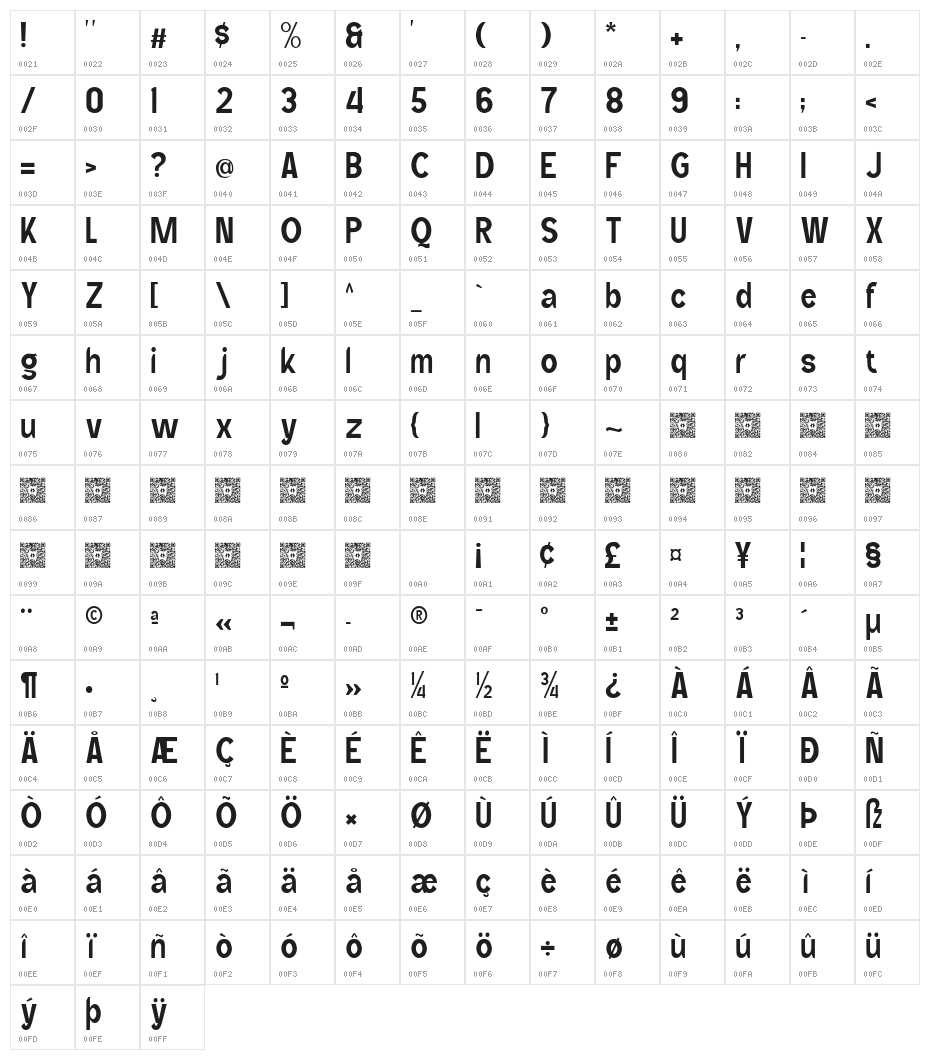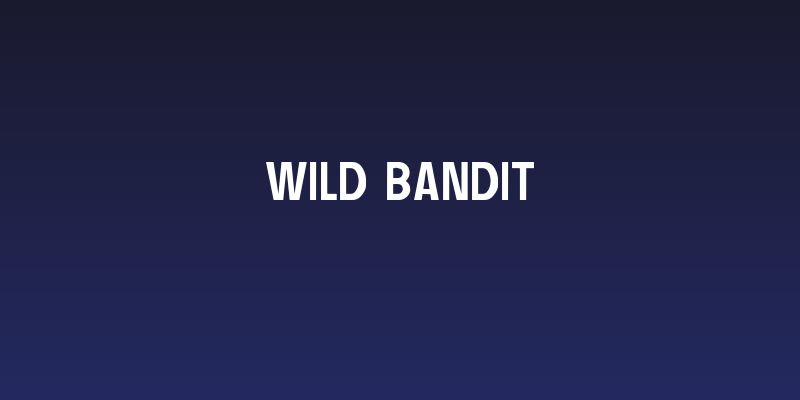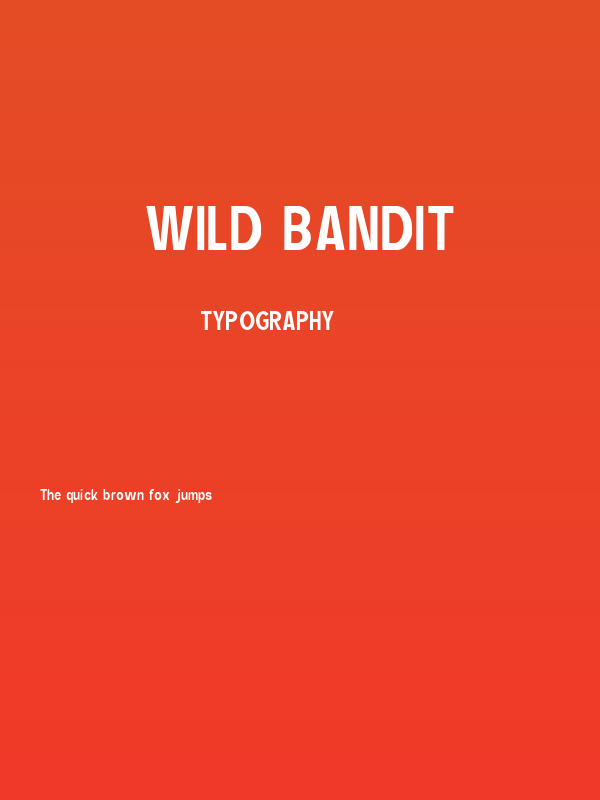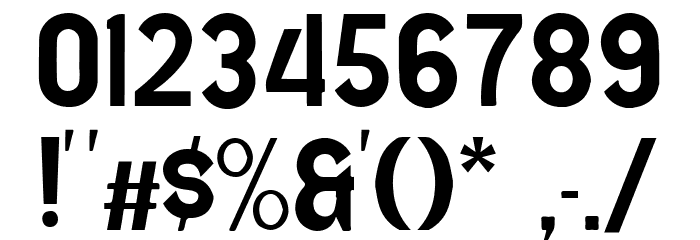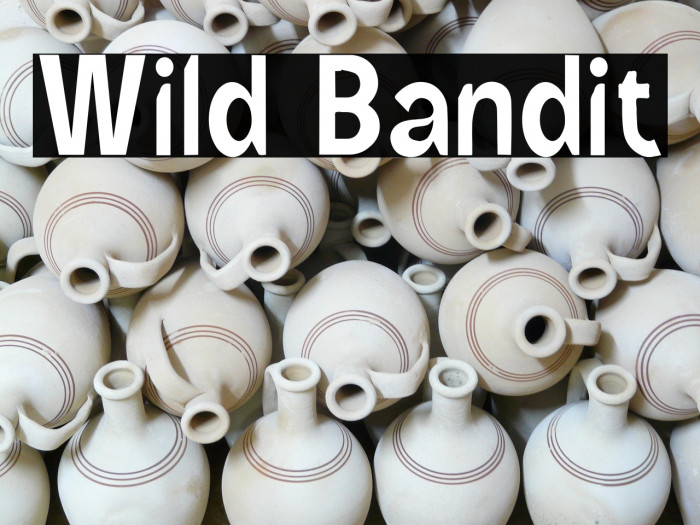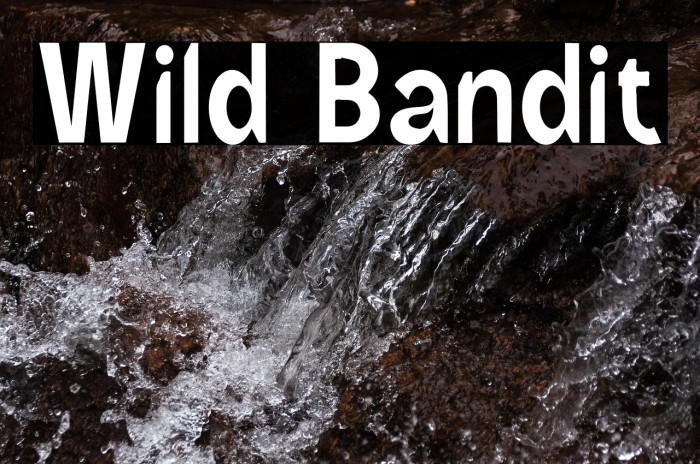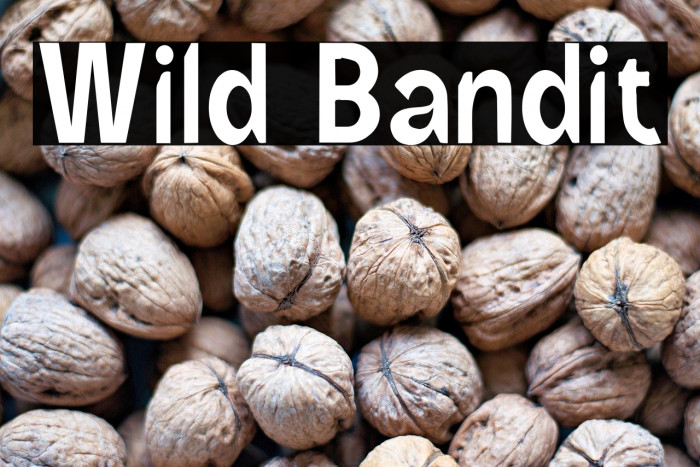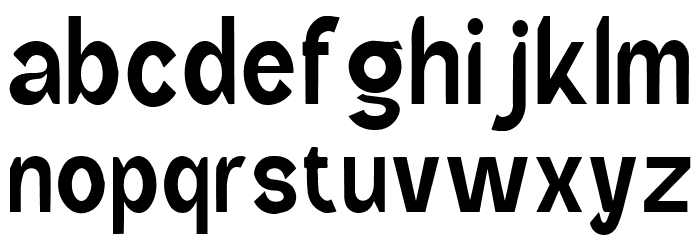
Wild Bandit Font
Wild Bandit Description
This font features a bold and robust design, characterized by thick strokes and a strong presence. The uppercase letters are uniform and well-proportioned, providing a sense of stability and confidence. The lowercase letters maintain a consistent style, with rounded edges that add a touch of softness to the overall boldness. The numerals are clear and legible, making them suitable for a variety of applications. Special characters are included, offering versatility for different contexts. The font's design is modern and clean, making it ideal for impactful headlines and attention-grabbing displays.
| Proposed Projects | Ideal for branding, advertising, posters, and any project requiring a strong visual impact. |